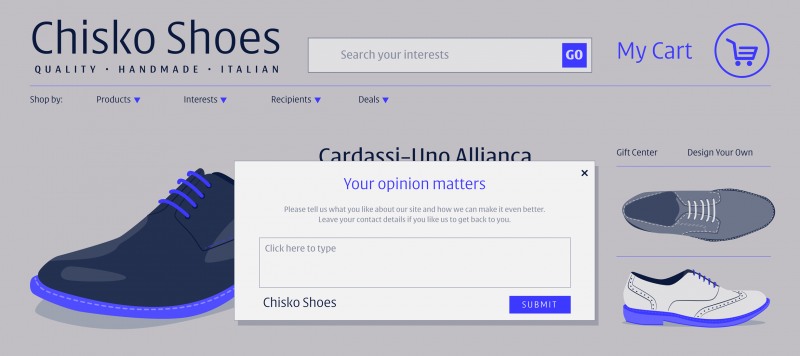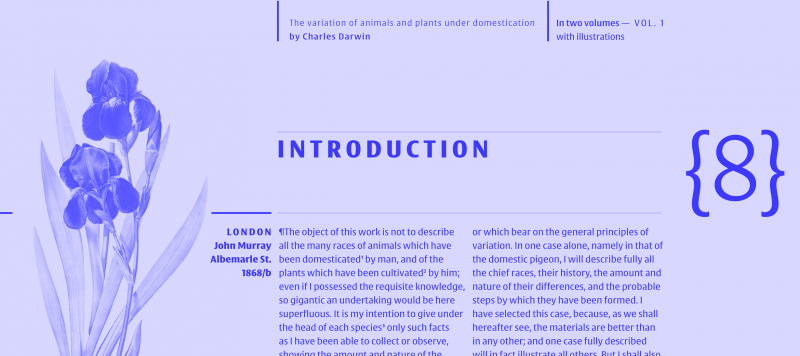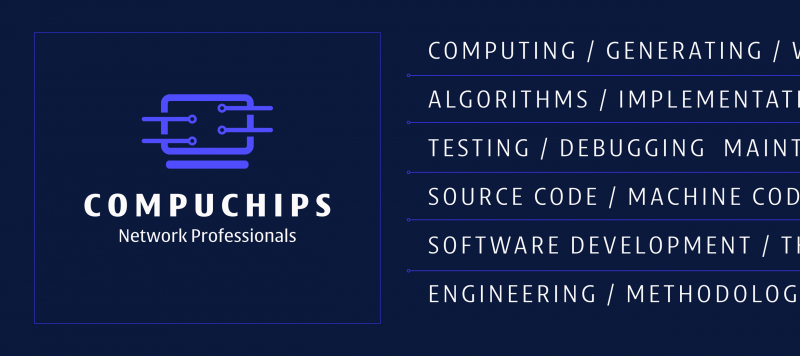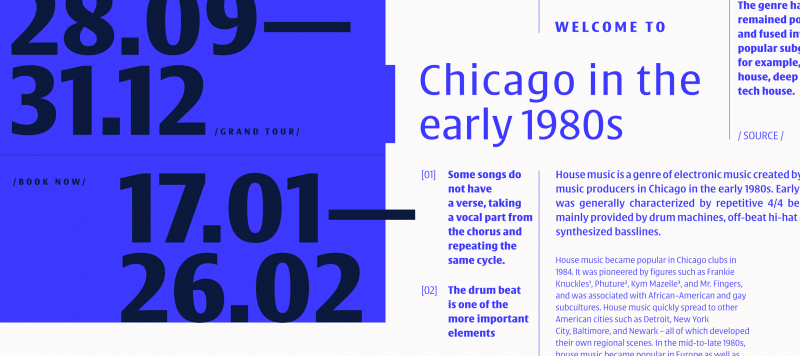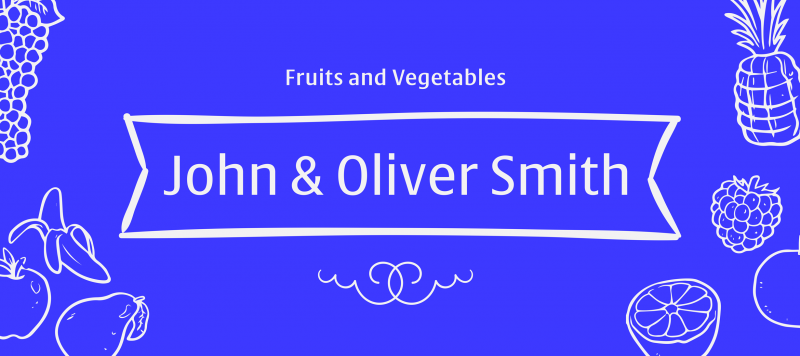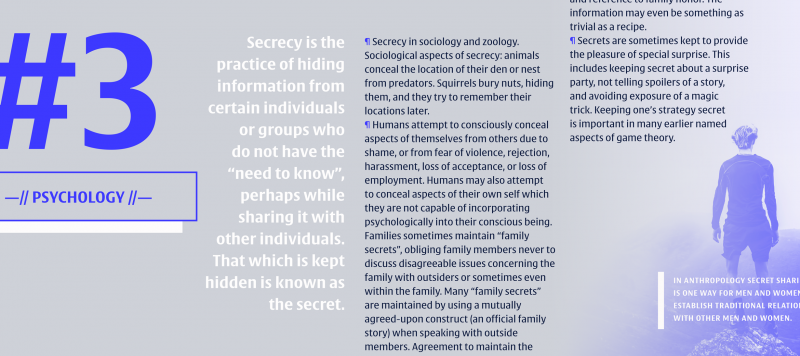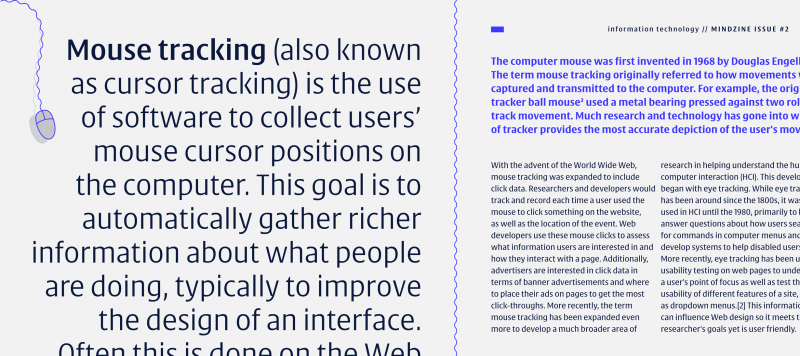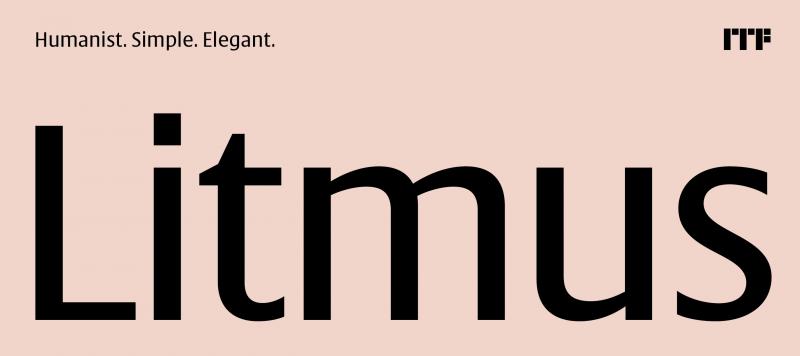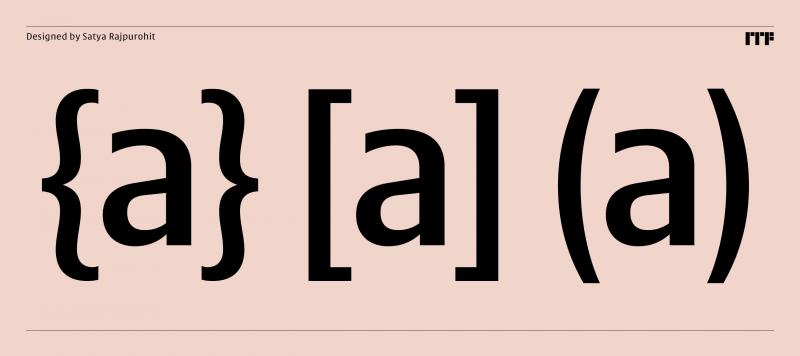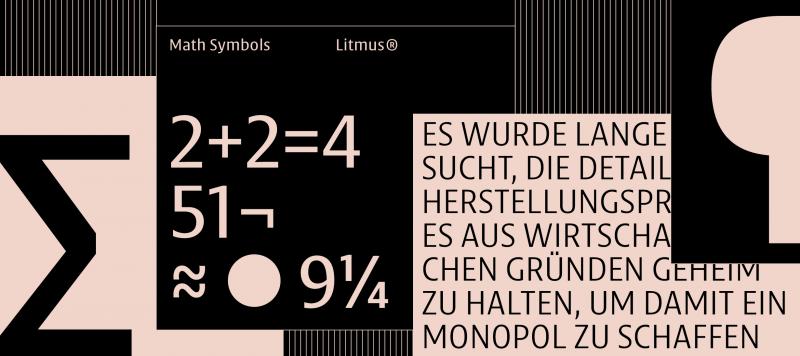
Litmus is the newest typeface from ITF co-founder Satya Rajpurohit. It is a slightly condensed humanist sans serif design, with a tall x-height and strokes that end with either horizontal or vertical terminals, instead of diagonals. Ascenders rise noticeable above the tops of capital letters, while the fonts’ numerals are slightly shorter than the caps. Litmus’s interior counterforms are rather open. There are five weights on offer: the Light is monolinear, but the stroke-contrast grows with every weight. The amount of contrast in the Bold is quite high. Each Litmus font makes use of a double-storey ‘a’ and single-storey ‘g’. The fonts may be put to excellent use for text on websites, or in print – especially in documents where a little space-saving is necessary.
Family Name | Litmus |
Designer(s) | Satya Rajpurohit |
Available Style | Light, Regular, Medium, Semibold, Bold |
Classification | Sans |